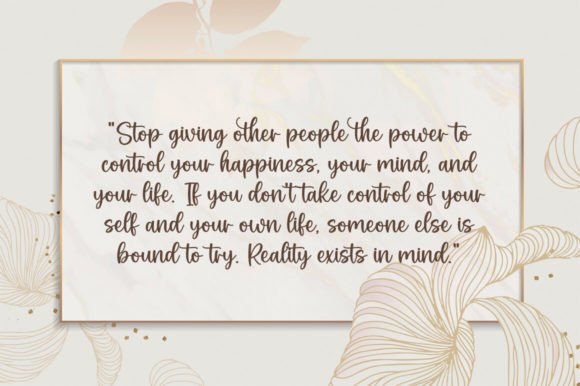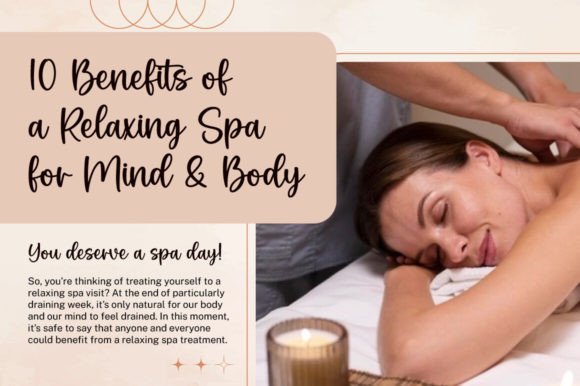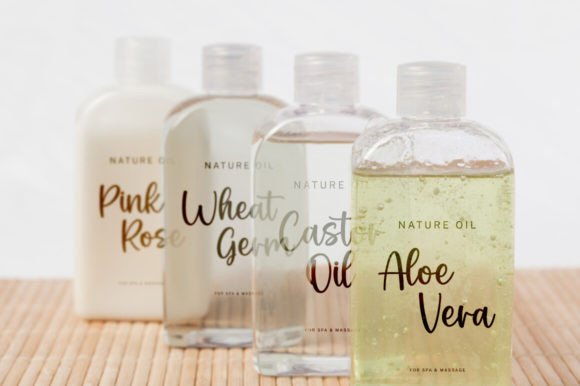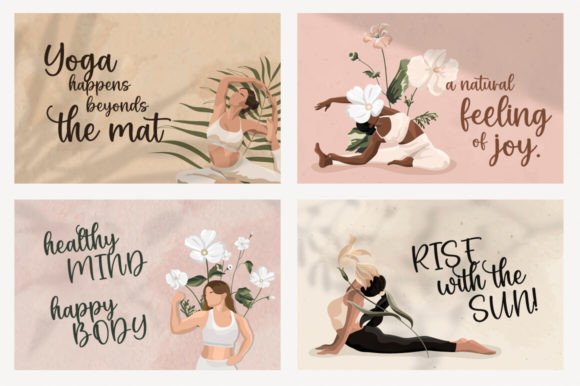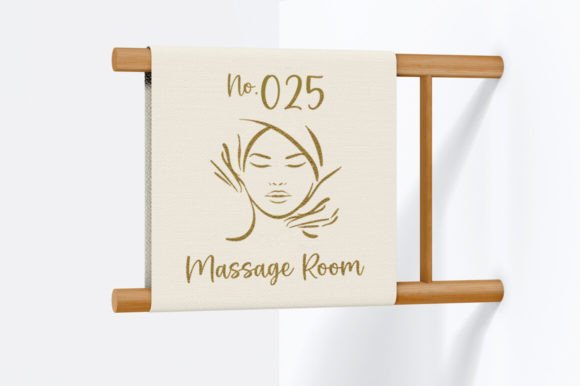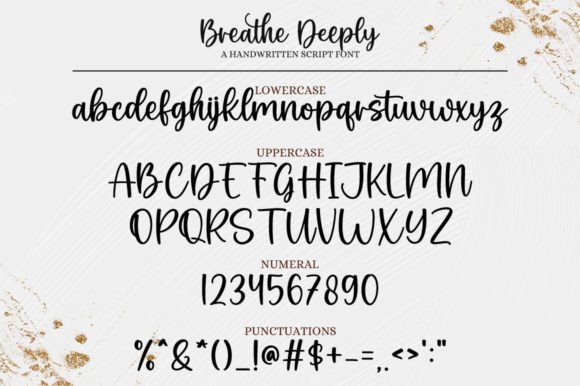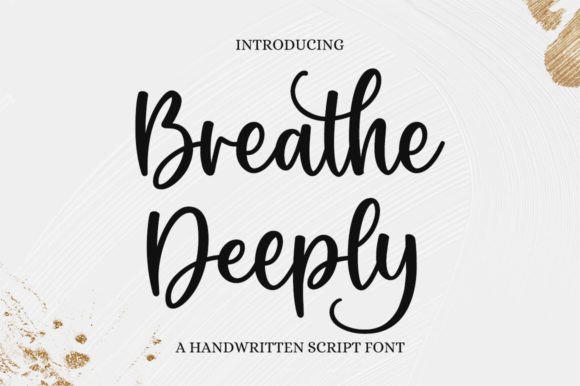
Breathe Deeply Font: Elevate Your Designs with Elegance and Sophistication
Are you on the hunt for a font that exudes refinement and poise? Look no further than the Breathe Deeply font, a delicate and sophisticated script font that is sure to capture your heart. With its incredibly versatile style, this stunning font is perfect for creating a wide range of designs, from gorgeous wedding invitations and beautiful stationery art to eye-catching social media posts and more.
The Essence of Breathe Deeply Font
Breathe Deeply font is a masterclass in elegance and sophistication. Its delicate lines and refined curves create a sense of luxury and refinement, making it perfect for designs that require a touch of class. Whether you’re a designer, crafty DIY enthusiast, or social media influencer, this font is sure to become a staple in your creative toolkit.
What Makes Breathe Deeply Font So Special?
So, what sets Breathe Deeply font apart from other script fonts on the market? Here are just a few reasons why this font is a cut above the rest:
- Delicate and Refined: Breathe Deeply font boasts an incredibly delicate and refined style that is perfect for creating sophisticated designs.
- Versatile: Whether you’re creating wedding invitations, social media posts, or stationery art, this font is versatile enough to adapt to any design style.
- Elegant and Sophisticated: With its flowing curves and delicate lines, Breathe Deeply font exudes elegance and sophistication, making it perfect for designs that require a touch of luxury.
Creative Uses for Breathe Deeply Font
The possibilities are endless when it comes to using Breathe Deeply font in your designs. Here are just a few ideas to get you started:
- Wedding Invitations: Create stunning wedding invitations that set the tone for a sophisticated and elegant wedding celebration.
- Stationery Art: Add a touch of luxury to your stationery art with Breathe Deeply font, perfect for creating beautiful journals, planners, and more.
- Social Media Posts: Elevate your social media posts with Breathe Deeply font, perfect for creating eye-catching graphics and quotes.
- Branding and Packaging: Use Breathe Deeply font to create elegant and sophisticated branding and packaging designs that stand out from the crowd.
Tips for Using Breathe Deeply Font
To get the most out of Breathe Deeply font, here are a few tips to keep in mind:
- Pair with Bold Fonts: Pair Breathe Deeply font with bold fonts for a striking contrast that adds visual interest to your designs.
- Use in Headlines: Use Breathe Deeply font in headlines and titles to add a touch of elegance and sophistication.
- Experiment with Colors: Experiment with different colors and textures to add depth and visual interest to your designs.
In conclusion, Breathe Deeply font is a delicate and refined script font that is sure to capture your heart. With its incredibly versatile style, elegant and sophisticated aesthetic, and wide range of creative uses, this font is perfect for designers, crafty DIY enthusiasts, and social media influencers alike. So why wait? Fall in love with Breathe Deeply font today and elevate your designs to new heights of elegance and sophistication.